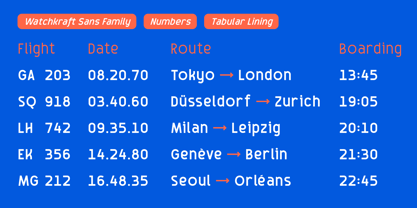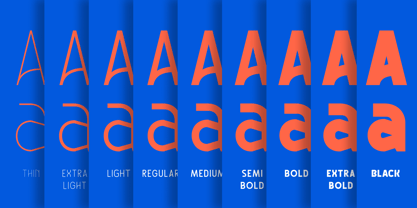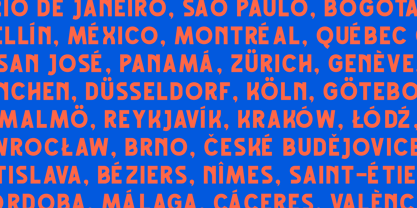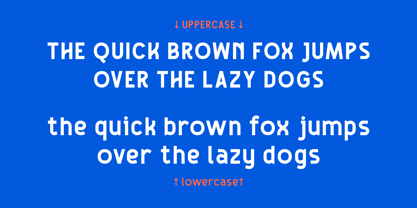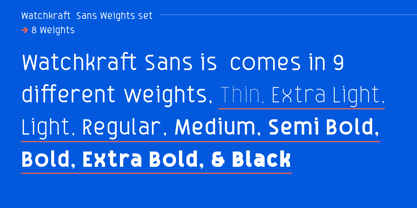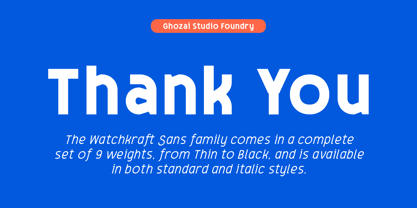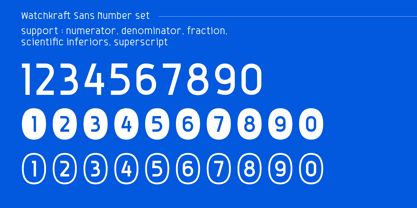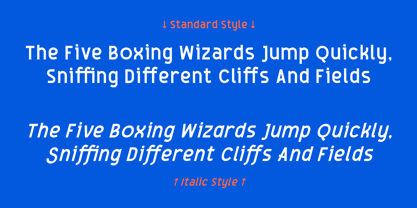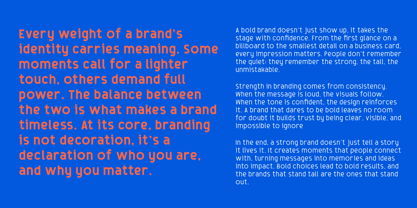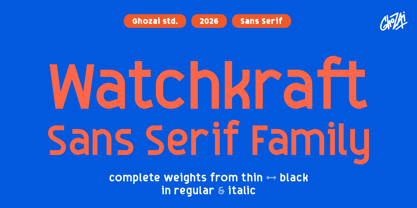
Watchkraft
von Ghozai Studio
Die Schriftfamilie Watchkraft wurde von Manzur Ghozaali entworfen und von Ghozai Studio veröffentlicht. Watchkraft enthält 18 Stile und Familienpaketoptionen. Mehr über diese Familie
Watchkraft is a grotesk-sans font family that offers a selection of 9 distinct weights, ranging from Thin to Black, along with both regular and italic styles, for a total of 18 fonts. This extensive range of weights is enhanced by a rich set of symbols, OpenType features, and Tabular Lining numbers, providing exceptional versatility for various languages and design needs. Its modern, clean, and bold aesthetic makes it perfect for a wide array of applications, including display, branding, signage, festival posters, sports, and more. Whether crafting impactful headlines, unique logos, or clear signage, Watchkraft seamlessly combines style with functionality. Its adaptability to different design styles positions it as an excellent choice for any project requiring a bold and contemporary flair.